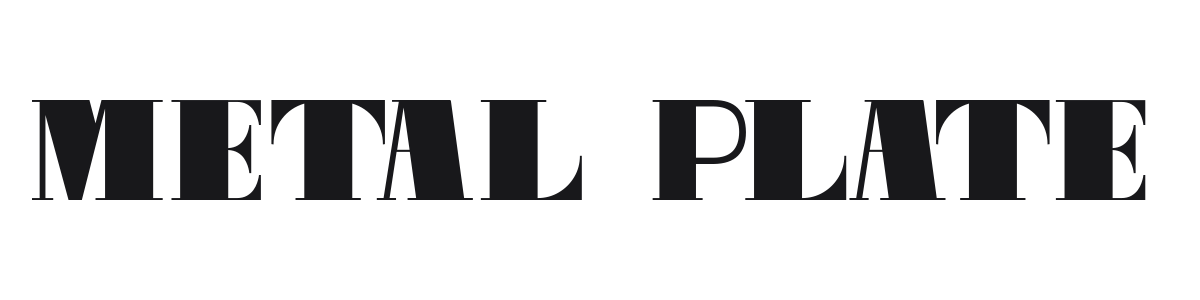
Metal Plate
Metal Plate is a condensed serif display font with extreme stroke contrast, pitting heavy vertical stems against near-invisible hairlines. The design pulls from Didone and Art Deco traditions to produce something that feels both vintage and graphic. It commands attention at large sizes and works well in editorial headlines, poster titling, and identity work with a bold period character.